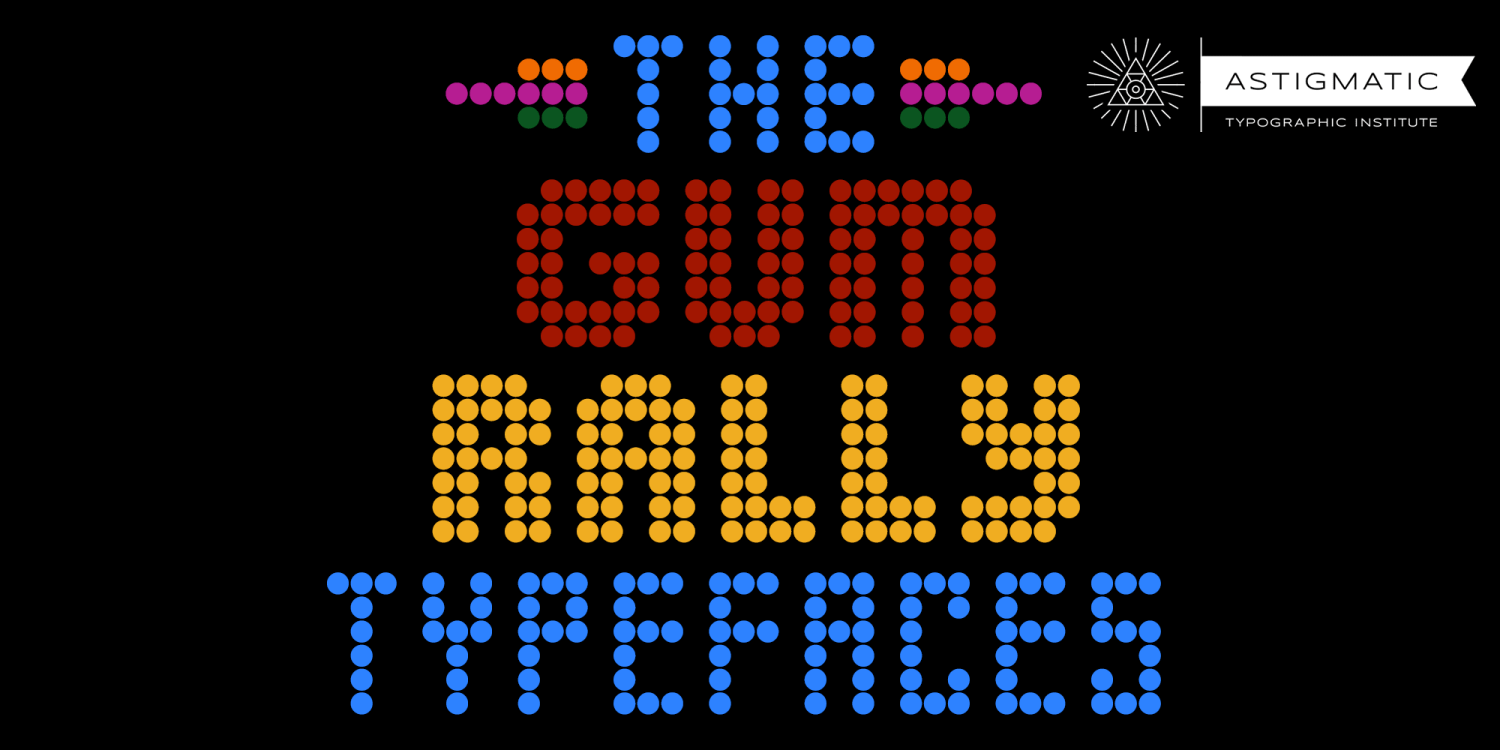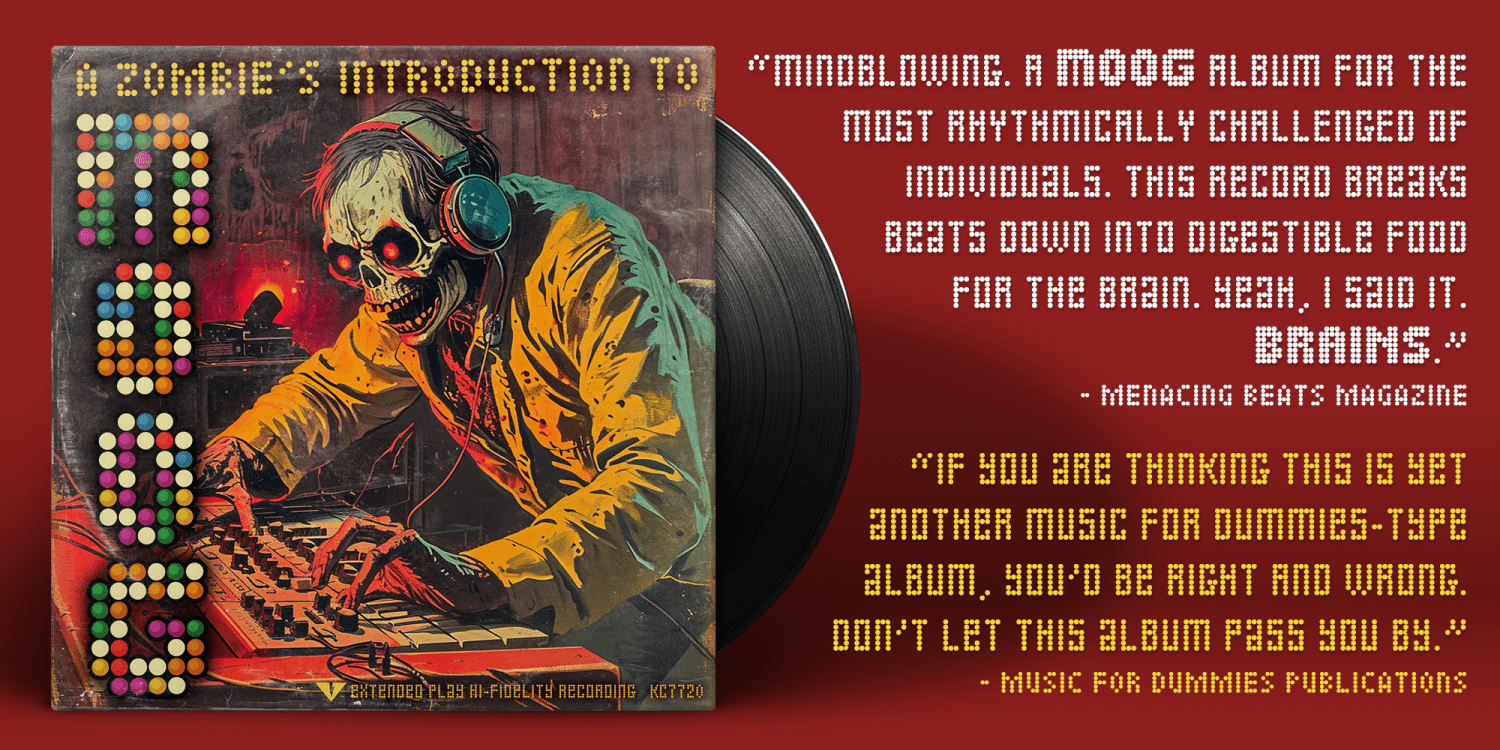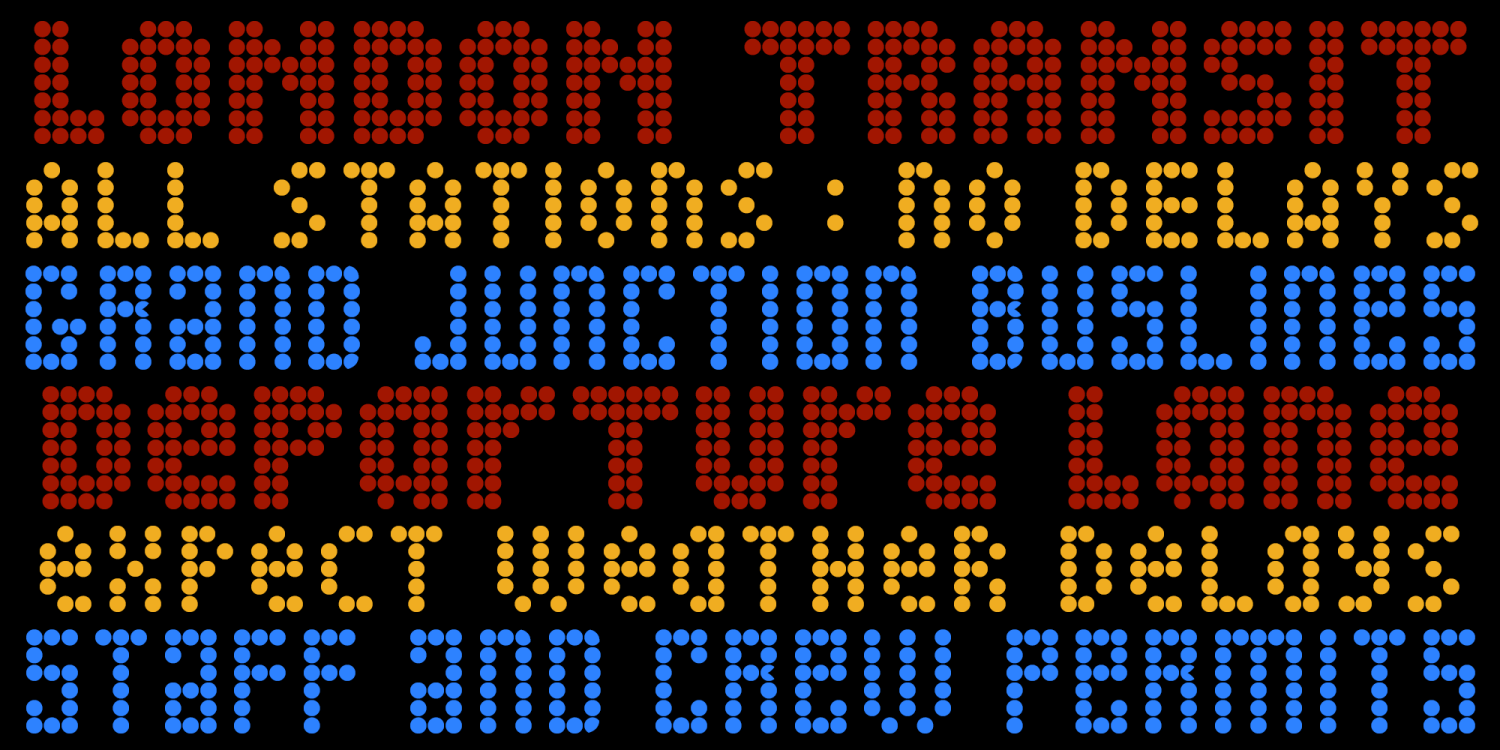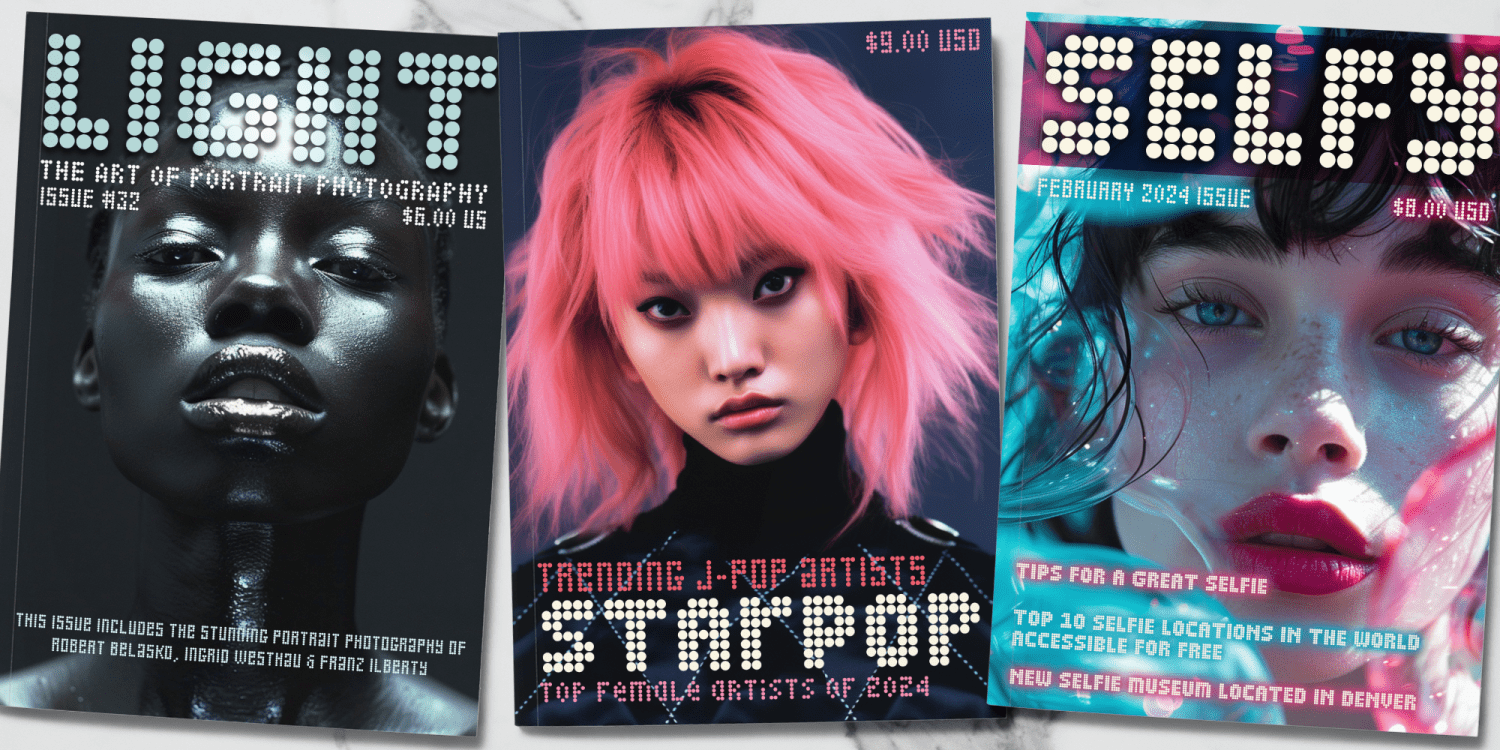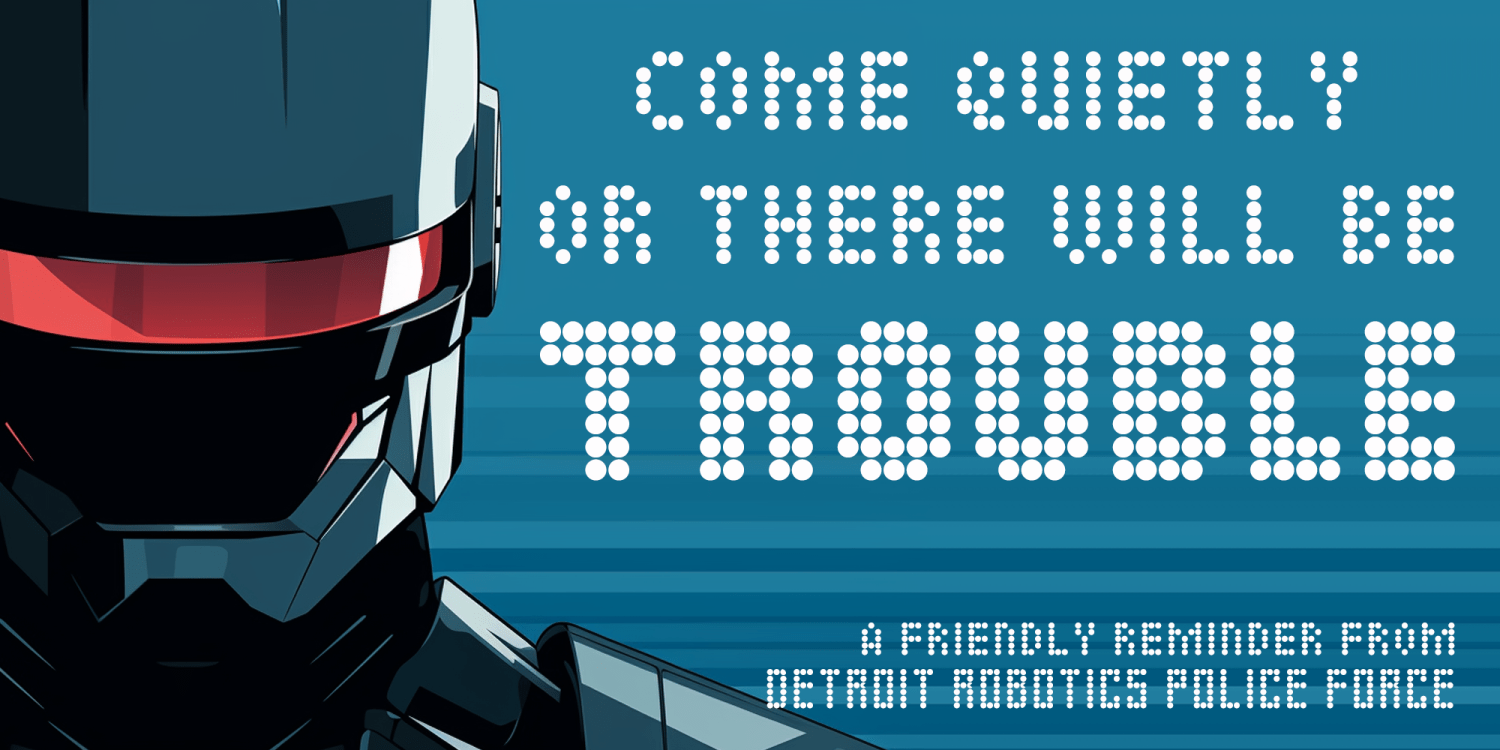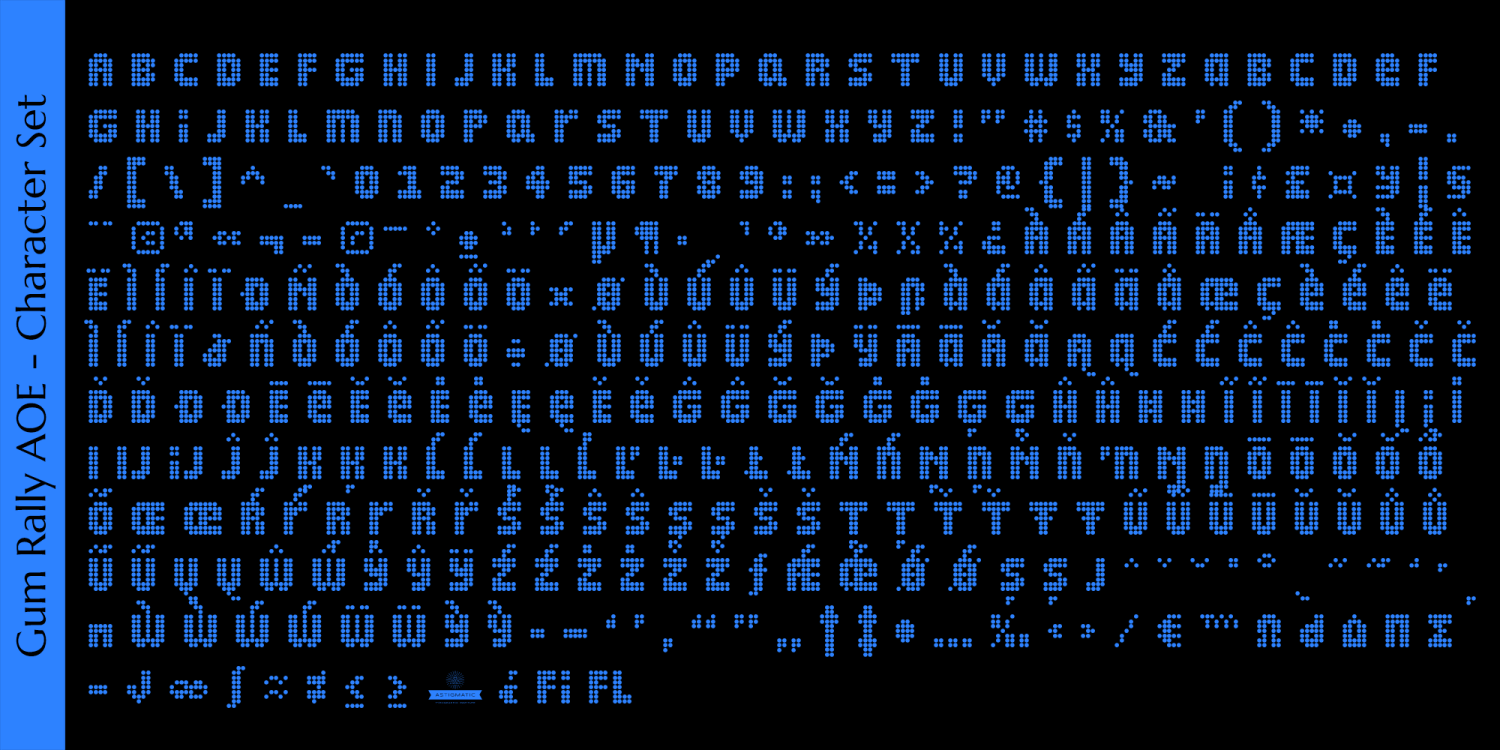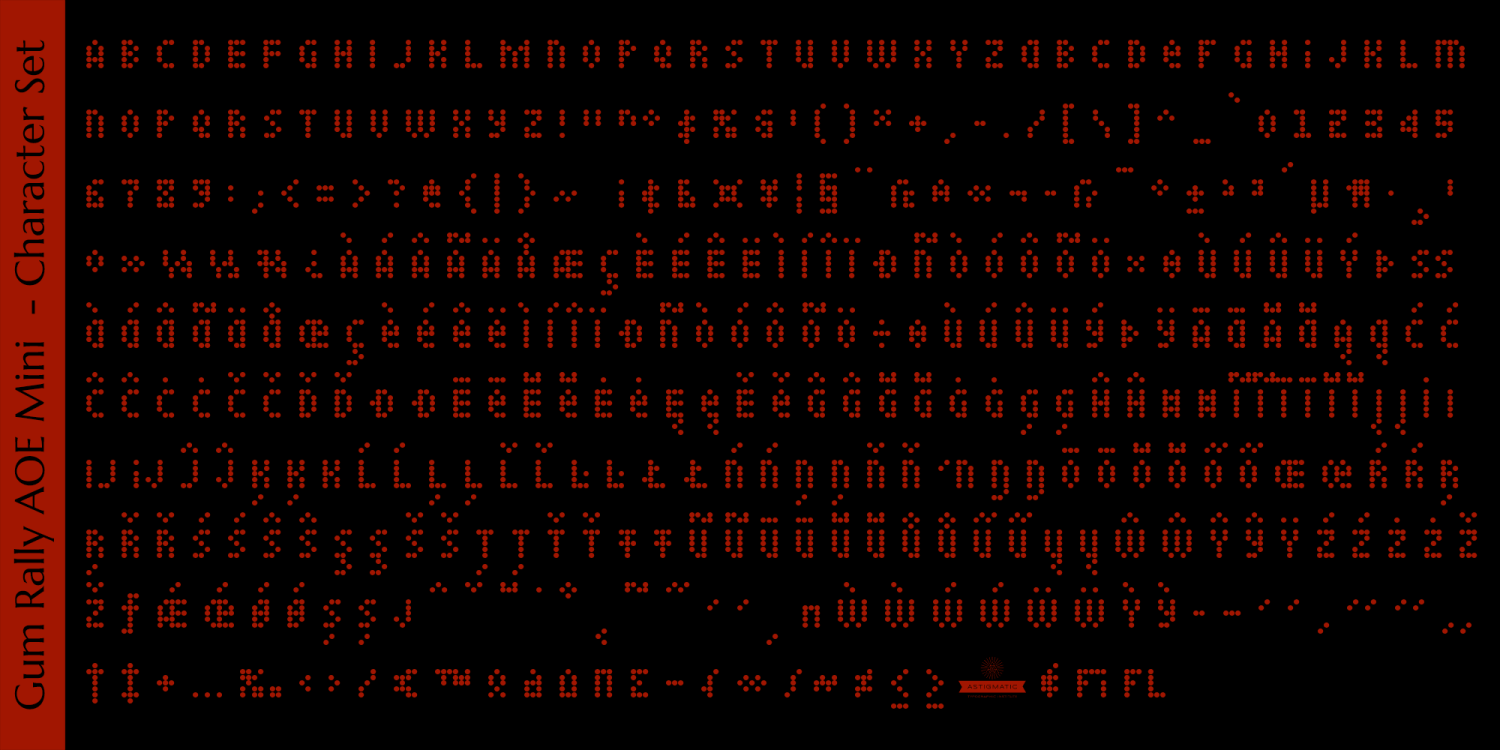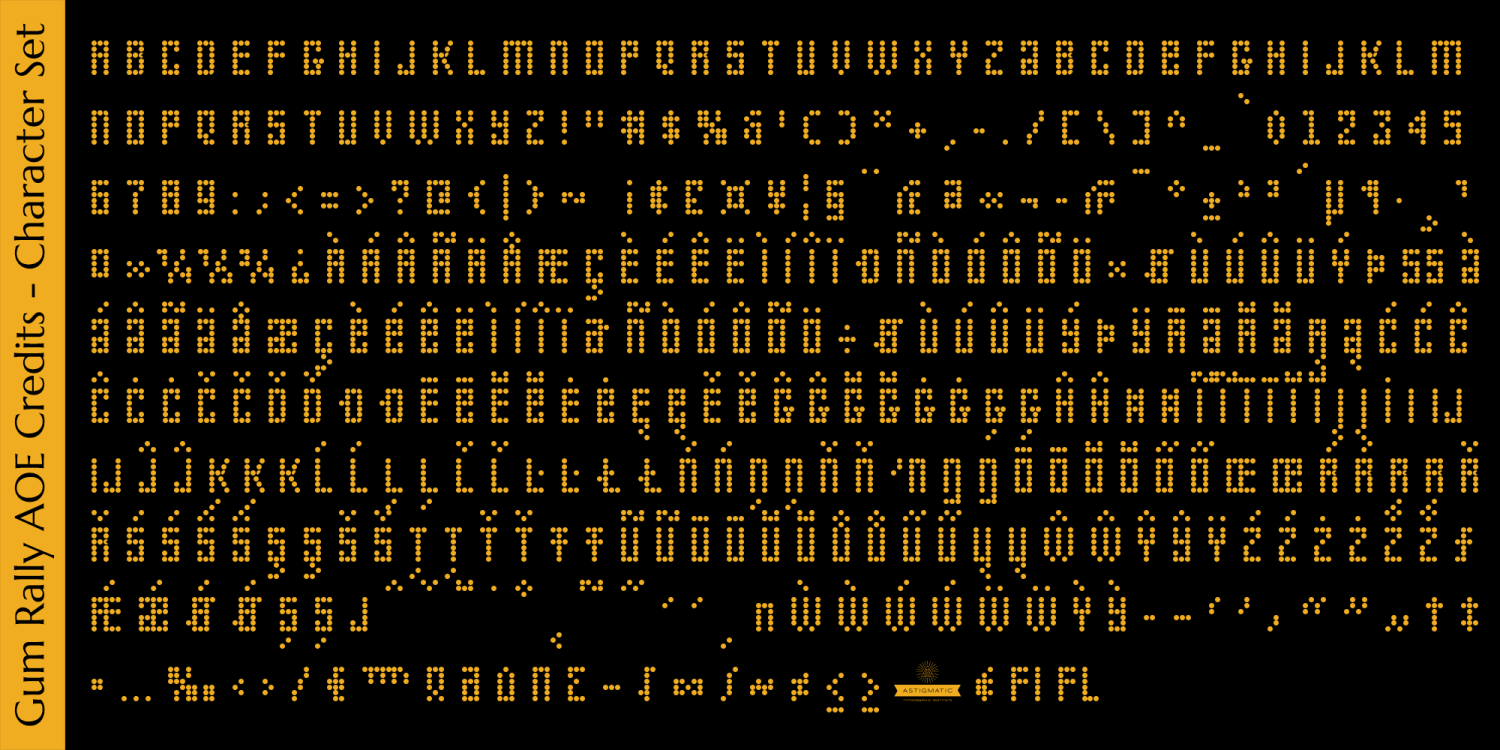
Gum Rally AOE
The film contains three unique dot matrix style lettering examples: from the beefy title text which is the regular style of the family, to the Mini style which is only seen in the credits for the word "THE" with decorative marks t the left and right of it, and the Credits style which has unusual cuts taken out of various dot matrix letters and is seen listing the credits of the movie.
I've used screen captures of the movie to faithfully recreate what was seen, and elaborate and expand on what didn't exist. The three fonts are built/scaled so that the dots are the same size across all three fonts when typeset, even though their scale changes. This allows you to uniformly set a mix of the fonts and remain visually consistent in the dot matrix or scale them randomly to your own preference.
In the MINI style, if you want to get those decorative lines, simply typeset the left and right parentheses and turn on the Stylistic Alternates feature.